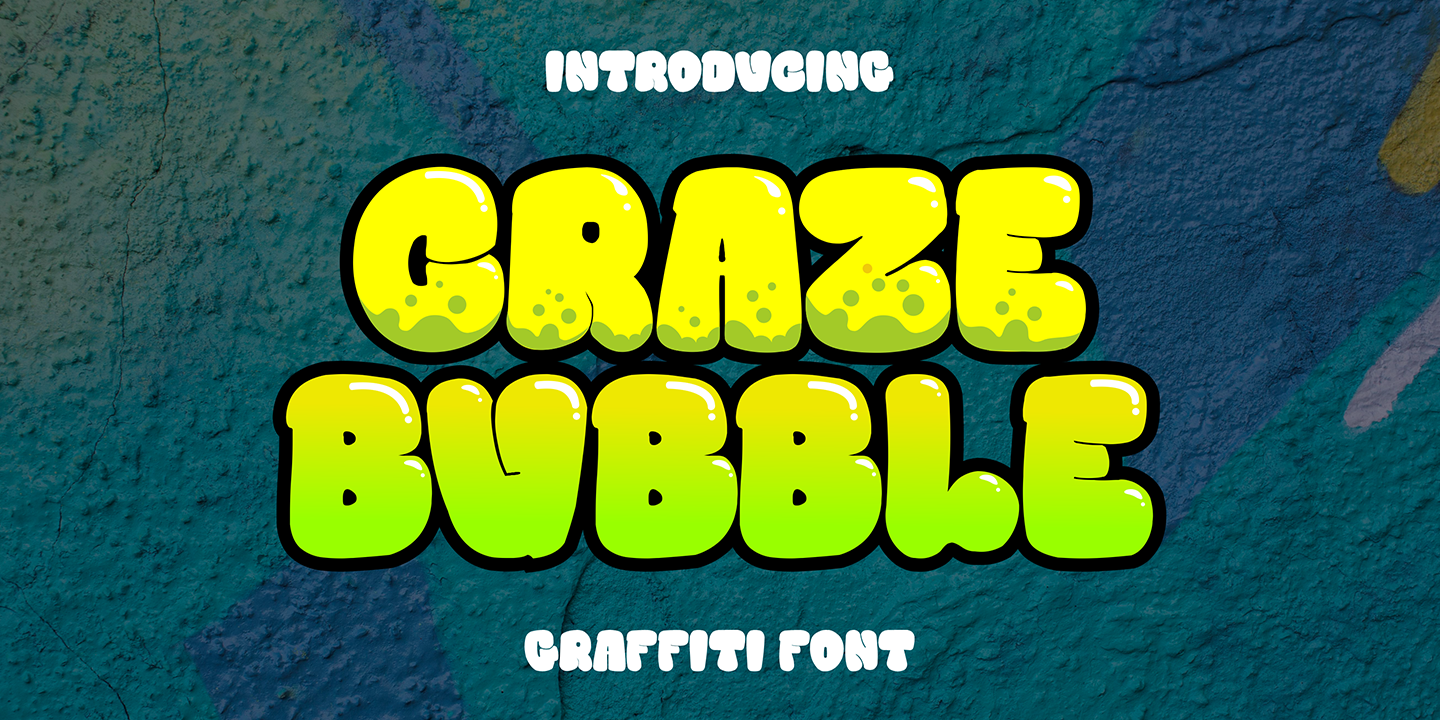
This playful bubble font is perfect for children's products, toy packaging, candy branding, party invitations, cartoon titles, youth marketing campaigns, birthday decorations, and fun design projects that need cheerful, energetic typography.
Craze Bubble Font is exciting because it captures pure joy and childhood wonder with its inflated, three-dimensional letterforms that seem ready to float away. The font brings instant happiness and playful energy to any design, making viewers smile.
The Craze Bubble Font family includes regular and outlined versions with uppercase letters, playful numerals, and fun punctuation marks, providing designers with delightful options for creating bubbly typography.
Want to add instant fun to your designs? Craze Bubble Font Free Download offers designers vibrant letterforms that bubble with personality and charm. This delightful typeface combines whimsical appeal with solid functionality, making it ideal for brands targeting children, families, and fun-loving audiences. Whether you're designing toy advertisements, candy packaging, or birthday party materials, this font delivers joyful impact. The carefully inflated characters feature consistent roundness while maintaining clear readability. Perfect for businesses in entertainment, confectionery, toys, and family services that celebrate happiness and creativity. The font's bubbly construction creates memorable brand recognition that resonates with young audiences. Each letter showcases playful dimension that translates beautifully across packaging, signage, and digital media. Download today and inject boundless energy into your creative projects with this premium display font that transforms ordinary text into extraordinary celebrations of fun and imagination.